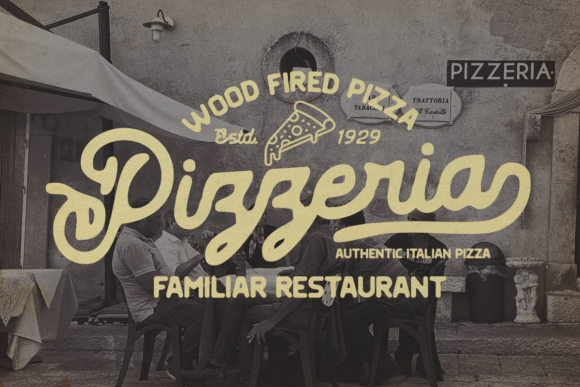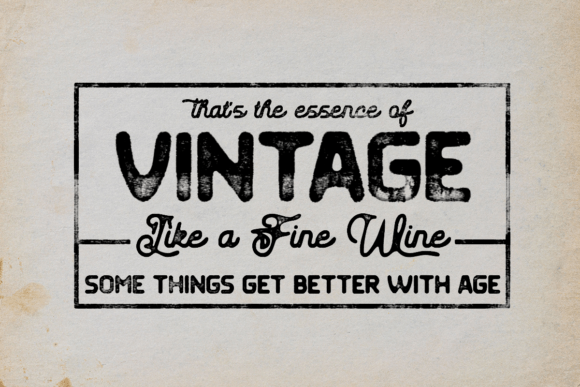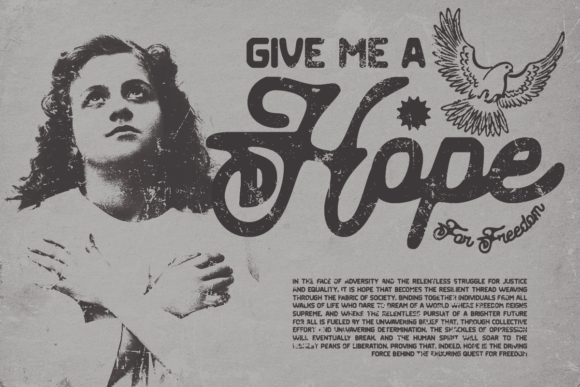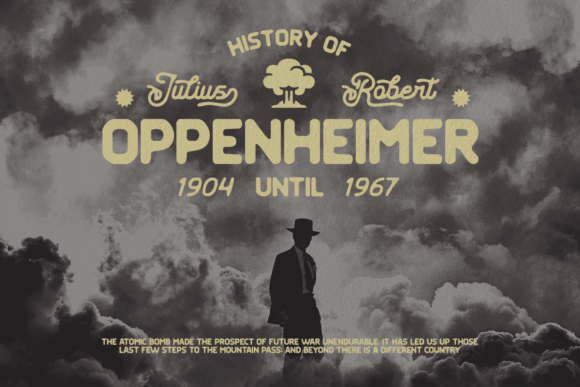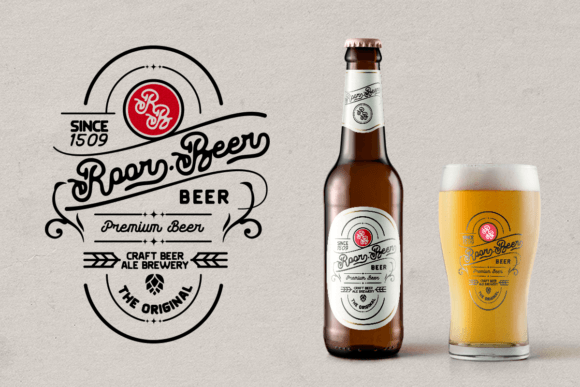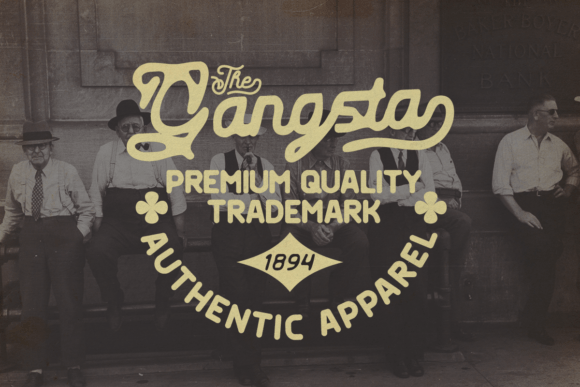
Introduction to Leather Necks Font
Remember the moment when you stumble upon an old, dusty record store, and the smell of vinyl transports you to a bygone era? For designers, that moment is often when they discover a font that perfectly captures the essence of a particular time and place. For us, that moment is when we discovered the Leather Necks Font, a script font that feels playfully nostalgic and delivers an incredible vintage aesthetic.
Whether you’re working on a creative project that requires a high-quality, free download font or just want to add a special touch to your design, the Leather Necks Font is an invaluable resource. Its transparent background and elegant script style make it perfect for designers who want to create visually stunning designs without the hassle of complicated design software.
With its unique blend of vintage charm and modern versatility, the Leather Necks Font is a must-have for any designer looking to elevate their creative project to the next level.
Key Features of Leather Necks Font
- Unique, distressed texture design ideal for creative projects
- High-quality font with transparent background, perfect for layered designs
- Comes in 4 different font styles: Regular, Italic, Bold, and Bold Italic
- Supports a wide range of languages, including English, Spanish, French, and more
- Designed to be highly scalable, with excellent resolution at sizes up to 500px
Honest Review: Leather Necks Font
As a designer, I’m always on the lookout for high-quality design resources that can elevate my creative projects. Recently, I had the chance to work with the Leather Necks Font, and I’m excited to share my honest review with you.
- ✨ Unique and stylish design: The Leather Necks Font has a distinctive look that can add a touch of sophistication to any project.
- ✨ High quality: The font is well-crafted and looks great even at larger font sizes.
- ✨ Transparent background: The font’s transparent background makes it easy to use with images and other design elements.
- ⚠️ Limited font weights: The Leather Necks Font comes with a limited number of font weights, which may not be suitable for all design projects.
- ⚠️ Not suitable for small text: Due to its unique design, the font may not be the best choice for small text sizes.
Overall, I’m impressed with the Leather Necks Font. It’s a great design resource for creative projects that require a unique and stylish look. While it may have some limitations, I highly recommend it for designers who want to add a touch of sophistication to their work.
The Leather Necks Font is a versatile design resource that can be used in a variety of creative projects, including brochures, flyers, and business cards. It’s also a great choice for creating a consistent brand identity across multiple marketing materials.